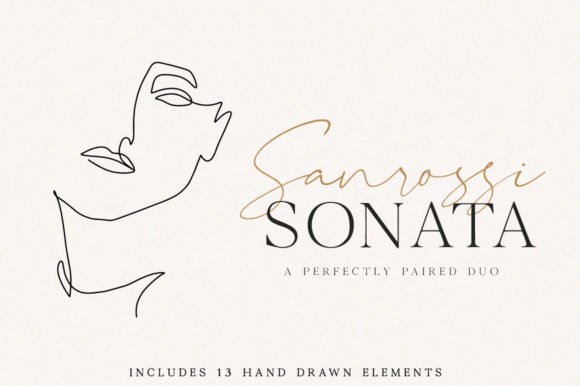
Introducing Sanrossi Sonata Duo: A Symphony of Script and Serif Elegance
Prepare to be enchanted by Sanrossi Sonata Duo, a font family that exudes sophistication and charm. Crafted with meticulous precision, this duo features a mesmerizing script font and an alluring serif companion, ready to elevate your designs to new heights.
With its fluid, cursive strokes and alluring ligatures, the Sanrossi Sonata Script dances across the page like a delicate melody. Each letter is a work of art, adorned with impeccably refined curves and silky smooth edges. The result is a font that captures the essence of elegance and finesse.
Perfectly complementing the script is the Sanrossi Sonata Serif, a font of timeless beauty and grace. Its sharp serifs and classic proportions lend an air of authority and trustworthiness, making it ideal for headlines, logos, and branding.
Together, these two fonts form a harmonious union that brings a touch of sophistication to any project. Whether you're creating wedding invitations, branding materials, social media posts, or website designs, Sanrossi Sonata Duo is the perfect choice for adding a touch of elegance and charm.
Dive into the world of Sanrossi Sonata Duo and experience the magic of this enchanting font family. Let your designs sing with the graceful strokes of the script and the timeless allure of the serif. Your projects will thank you for it.
Additional reasons to fall in love with Sanrossi Sonata Duo:
- Versatility at its Finest: This dynamic duo effortlessly transitions between different styles and genres, making it a versatile asset for any designer.
- Make a Statement: With its captivating presence, Sanrossi Sonata Duo commands attention and leaves a lasting impression on your audience.
- Timeless Elegance: Combining classic serif and modern script elements, this font family embodies timeless elegance that will never go out of style.
- Let Your Creativity Flow: Sanrossi Sonata Duo is an invitation to let your creativity soar. Its versatility allows you to explore endless design possibilities.
- Engage Your Audience: This font family's captivating charm is sure to captivate your audience and leave them wanting more.
Sanrossi Sonata Duo: The Perfect Choice for Designers Who Dare to Dream Big.